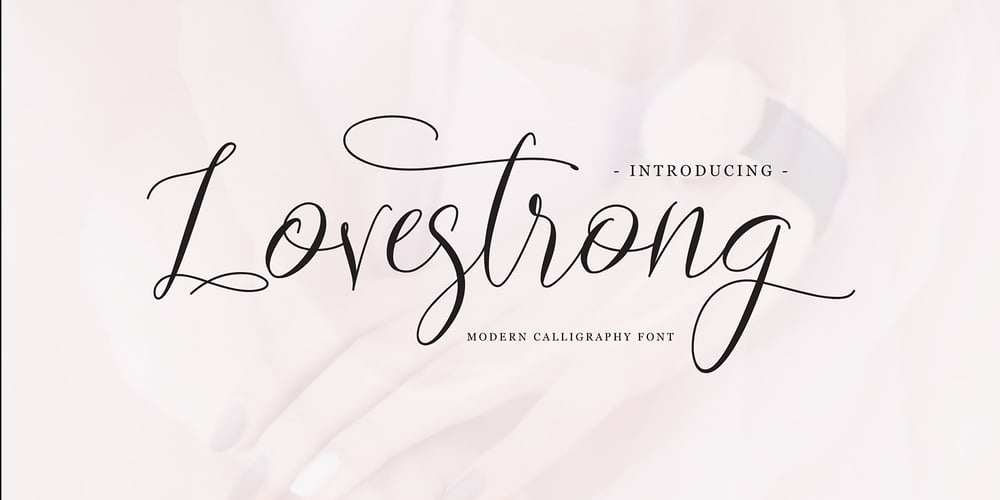
Lovestrong
Lovestrong font
Lovestrong Font Family was designed by Yahdi Kumala and published by Rometheme. Lovestrong contains 1 styles and family package options. Lovestrong Script is a beautiful and modern handwritten font script. this font looks elegant, classy, readable, stylish, catchy and easy to use.Lovestrong is the best choice for your professional design projects, including signature, watermark on photography, quotes, wedding, fashion, letter, invitation, business card, logo, branding, magazines, social media, advertisements, product designs, and much other design projects.Highlight:- Easy instalation- Work on PC or Mac- PUA Encoded Support- Basic Latin A-Z and a-z- Numbers- Symbols- No special software is required, The fonts can be opened and used in Adobe Illustrator, Adobe Photoshop, Adobe InDesign, even work on Microsoft Word.